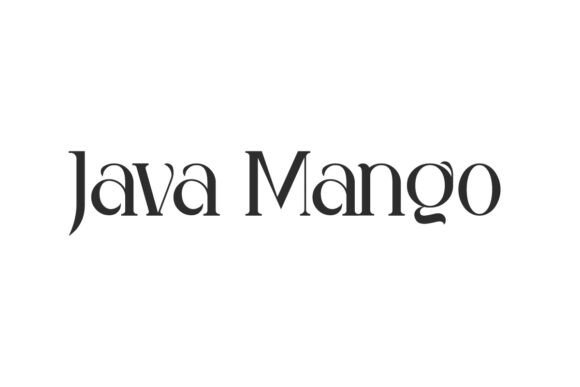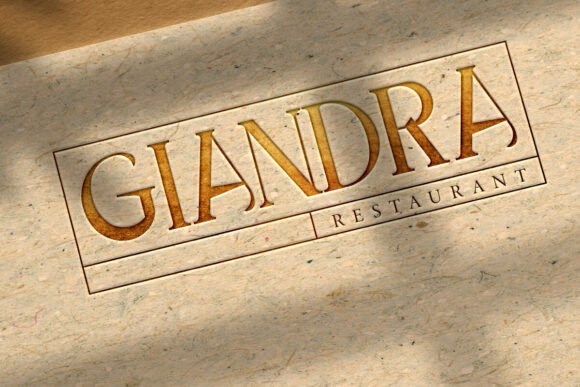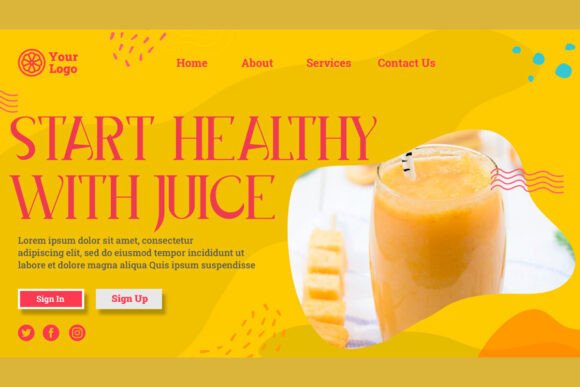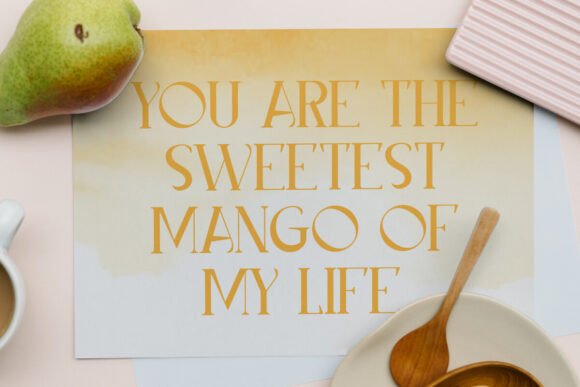
Java Mango Font: A Unique Serif for Vintage Logo Design
About the Java Mango Font
The Java Mango Font offers a perfect balance of form and function for your design needs. Java Mango Font is a vintage and stylish serif display font with a unique, vibrant. Useful in any design, including headlines, promotions, brand identity, corporate sign, cover, flyer, headline, invitation, label, logo design, notes, packaging design, postcards, poster, quotes, screen printing, signage, stationery, sticker, typographic design, website, and more.
Java Mango’s vintage styling makes it ideal for headlines, posters, and branding projects requiring a touch of retro flair. It excels in short, impactful text applications like logos and packaging where its unique character can shine. However, its ornate details make it less suitable for body copy or UI elements; smaller sizes lose legibility.
The font possesses a bold, yet friendly personality. It works well for brands aiming for a vintage-inspired yet approachable aesthetic – think artisanal coffee shops, boutique hotels, or vintage clothing lines.
Pairing Java Mango with a clean sans-serif like Open Sans for body text provides excellent contrast and readability. For a more playful feel, consider a handwritten script font like Pacifico. A geometric sans-serif like Montserrat could offer a modern counterpoint, balancing the vintage feel.
Java Mango Font Usage Examples
Java Mango Font Example